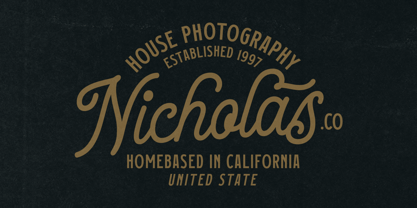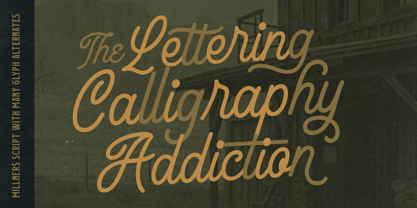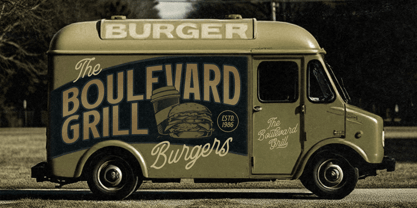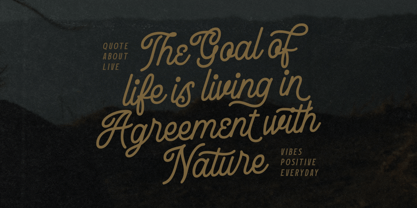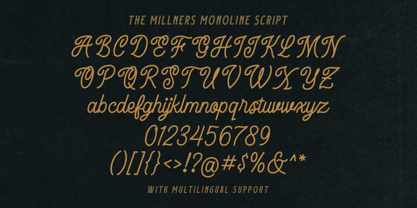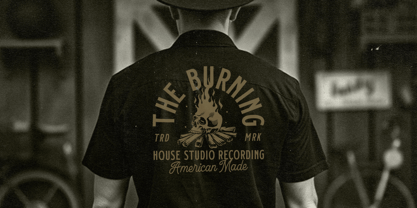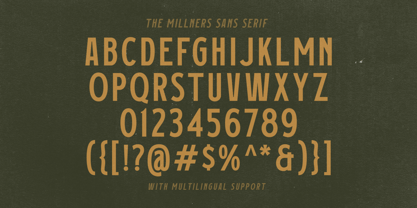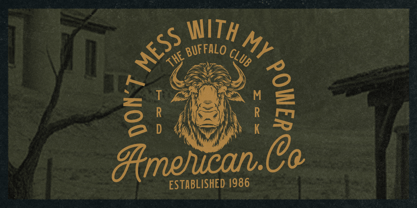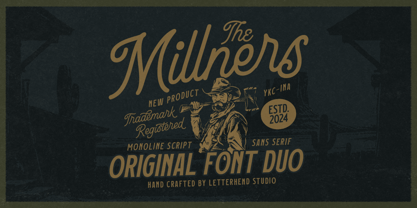
The Millners Medium
by Letterhend
The The Millners Medium Font Family was designed by Hendry Juanda and published by Letterhend. The Millners Medium contains 2 styles and family package options. More about this family
Introducing, The Millners, a pair of hand drawn sans serif and monoline script with a touch of vintage look and feel. This type of font perfectly made to be applied especially in logo, headline, signage and the other various formal forms such as invitations, labels, logos, magazines, books, greeting / wedding cards, packaging, fashion, make up, stationery, novels, labels or any type of advertising purpose.
Features :
• Uppercase & lowercase
• Numbers and punctuation
• Alternates Character
• Multilingual support
Designers: Hendry Juanda
Foundry: Letterhend